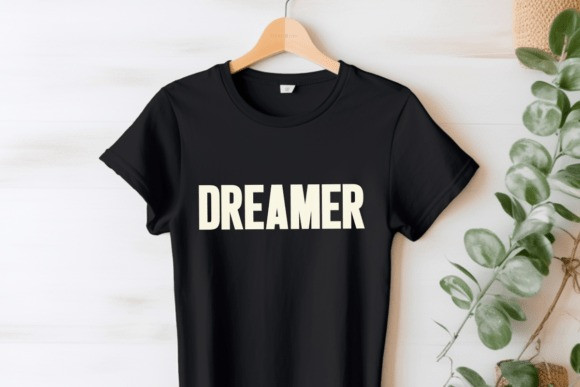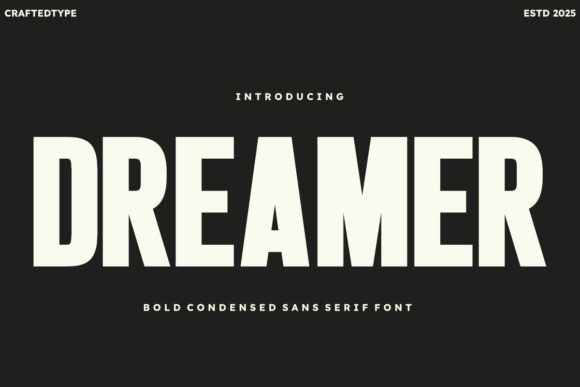
Dreamer Font
Dreamer Font is a powerful and impactful bold condensed sans serif typeface designed to make a statement. Its strikingly assertive presence and minimalist, clean lines are perfectly crafted for the modern creative. With its high visibility and strong structure, Dreamer is the ideal choice for designers looking to cut through the noise and deliver a clear, memorable message.
This versatile font is a must-have in any graphic designer’s toolkit. It excels in a variety of high-impact applications, including branding, logo design, large-format titles, magazine headlines, and editorial layouts. For the Print on Demand (POD) market, Dreamer is an absolute winner. Its thick strokes and condensed shape ensure it prints beautifully and remains legible even when scaled or used on merchandise like T-shirts, mugs, posters, and apparel. Furthermore, crafters will find its clean, robust design ideal for cutting machines (Cricut/Silhouette) and vinyl projects.
Dreamer includes standard uppercase and lowercase characters, numerals, punctuation, and multilingual support, providing full flexibility for global projects. Bring a sense of bold confidence and contemporary style to your next creative endeavor with the Dreamer Font.